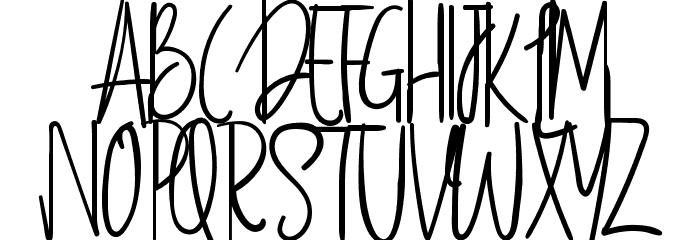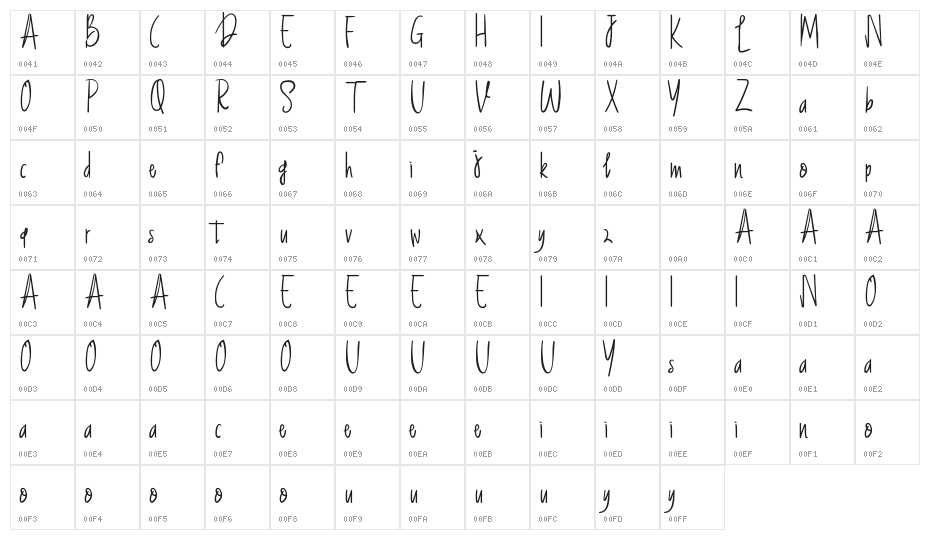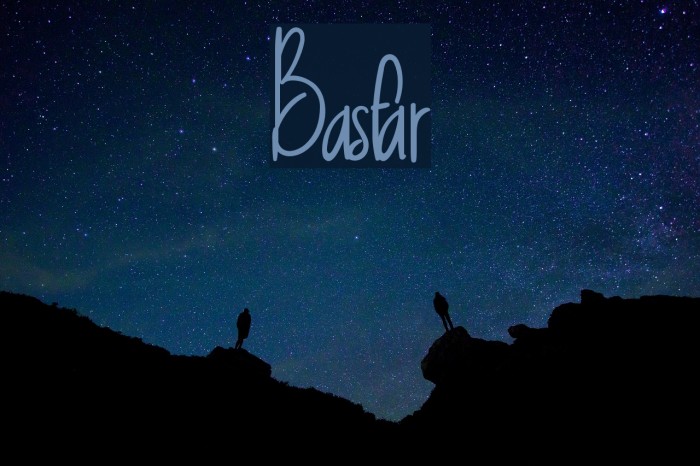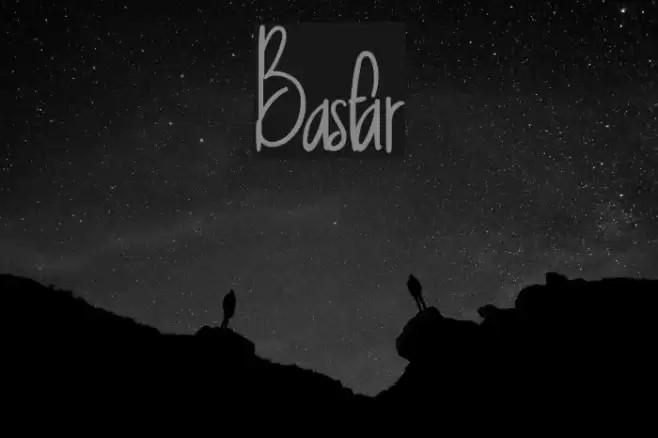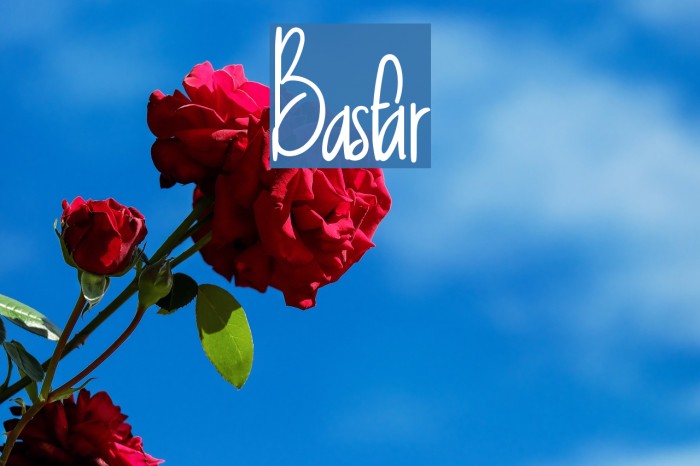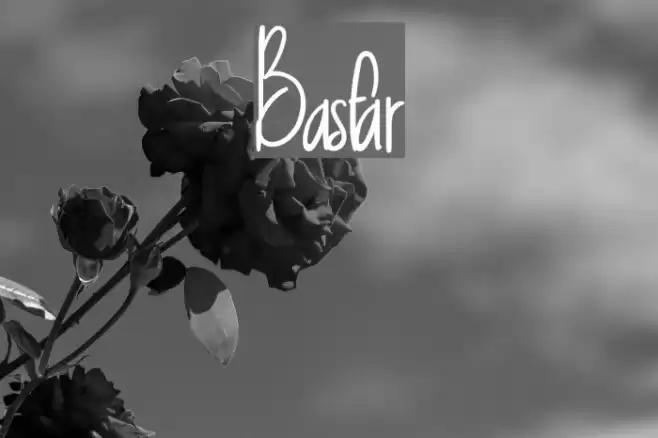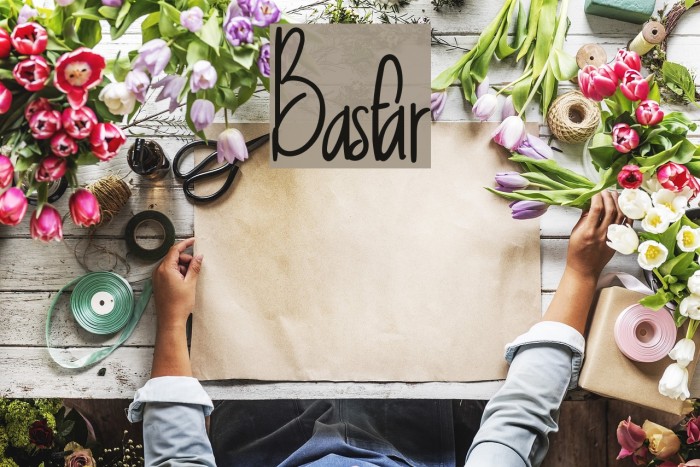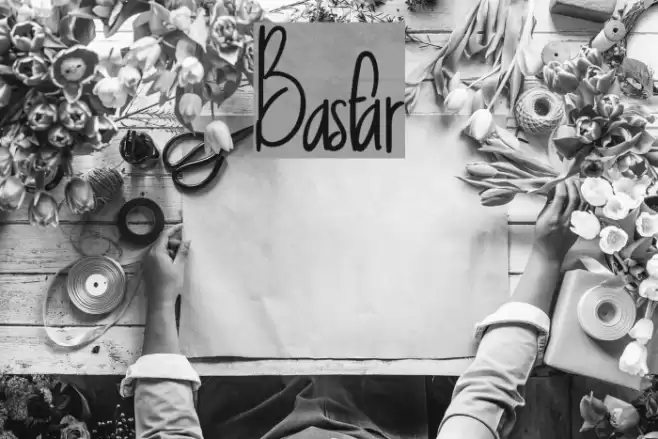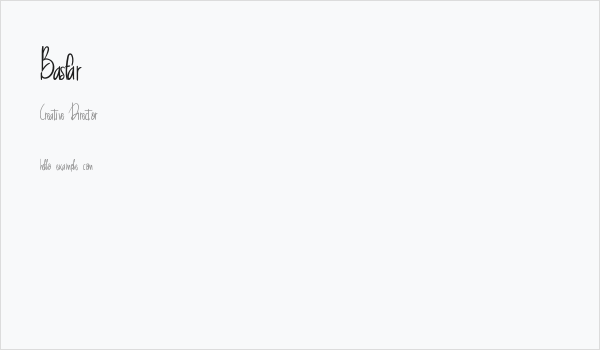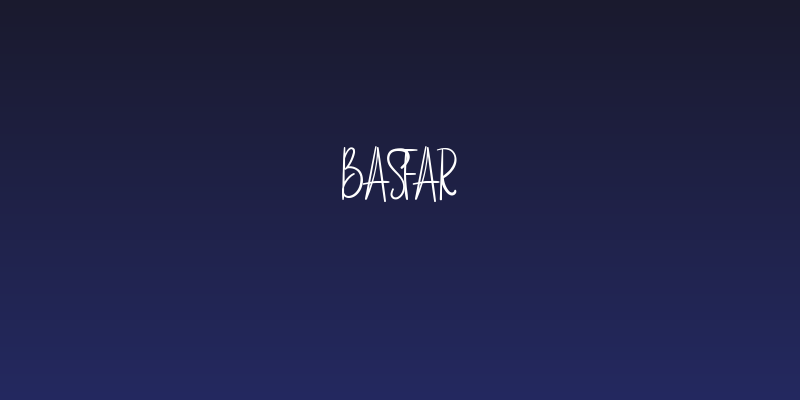
Basfar Font
Basfar Description
This font exudes a dynamic and energetic vibe with its tall, narrow letterforms and playful, handwritten style. The characters are elongated and slightly irregular, giving a sense of movement and spontaneity. The strokes are bold and confident, with varying thickness that adds a lively contrast. The uppercase and lowercase letters maintain a consistent style, while the numerals and special characters blend seamlessly into the overall design. This font's unique personality makes it stand out, perfect for projects that require a touch of creativity and flair.